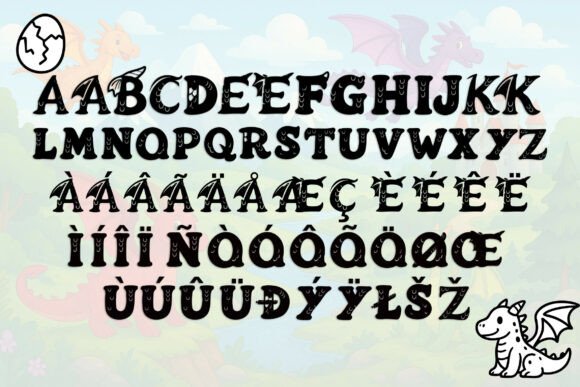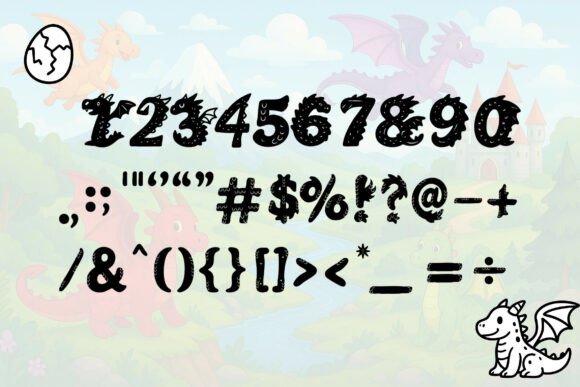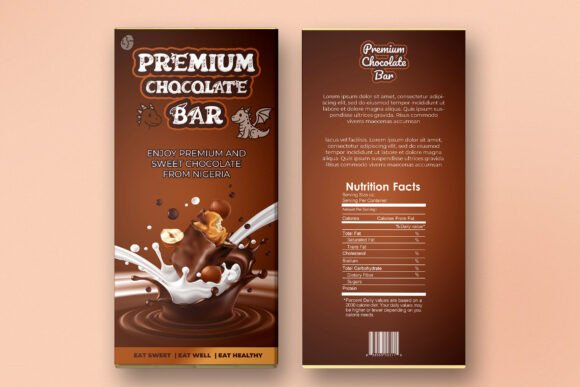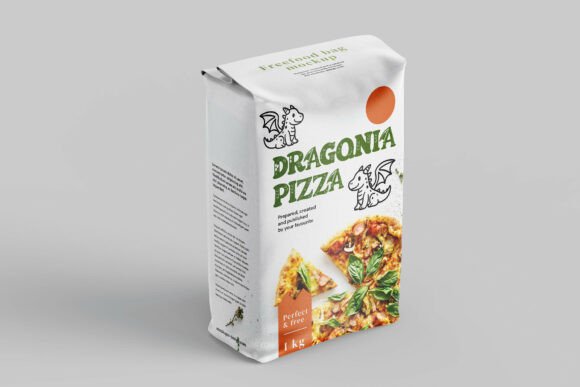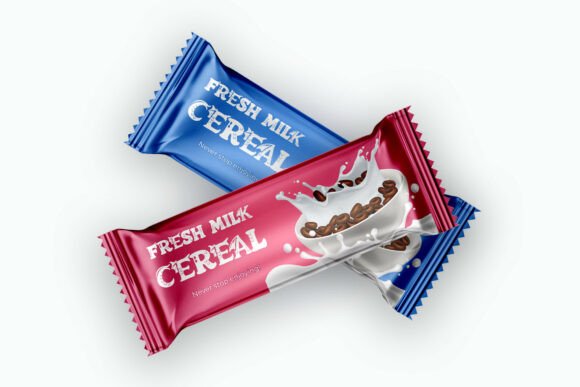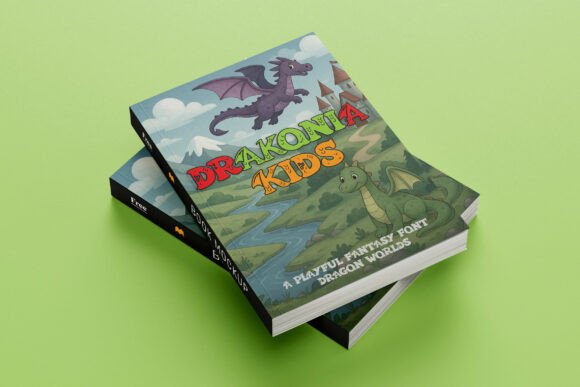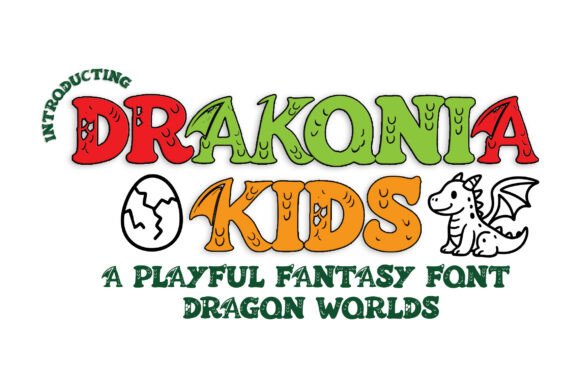
Drakonia Kids Font: A Magical Typeface for Young Adventurers
Are you a designer, crafter, or educator looking for a font that will transport your young audience to a world of wonder and magic? Look no further than Drakonia Kids, a playful fantasy-themed font inspired by the enchanted realms of dragons. In this article, we’ll explore the features and uses of Drakonia Kids, and why it’s the perfect choice for storybooks, games, logos, crafts, classroom fun, and creative learning materials.
The Inspiration Behind Drakonia Kids
Drakonia Kids is a font that embodies the spirit of fantasy and adventure. Its design is inspired by the mythical worlds of dragons, where magic and wonder reign supreme. The font’s creator aimed to capture the essence of these fantastical realms and bring them to life in a typeface that’s both fun and engaging. The result is a font that’s perfect for projects that require a touch of whimsy and playfulness.
Key Features of Drakonia Kids
So, what makes Drakonia Kids so special? Here are some of its key features:
- Playful and fantasy-themed design: Drakonia Kids boasts a unique and imaginative design that’s sure to captivate young audiences.
- Magical and adventurous feel: The font’s style evokes the sense of excitement and wonder that comes with exploring enchanted worlds.
- Perfect for kids’ projects: Drakonia Kids is specifically designed for use in projects aimed at children, making it an ideal choice for storybooks, games, and educational materials.
- Versatile and adaptable: The font can be used in a variety of contexts, from logos and branding to crafts and classroom activities.
Uses for Drakonia Kids
Drakonia Kids is a versatile font that can be used in a wide range of projects, including:
- Storybooks and children’s literature: Bring your storybook characters to life with Drakonia Kids’ playful and imaginative design.
- Games and interactive media: Add a touch of magic to your games, puzzles, and interactive materials with this enchanting font.
- Logos and branding: Create a memorable and engaging brand identity for your kids’ business or product with Drakonia Kids.
- Crafts and DIY projects: Use Drakonia Kids to add a personal touch to your craft projects, such as stickers, stencils, and coloring pages.
- Classroom fun and creative learning materials: Make learning fun with Drakonia Kids, perfect for educational posters, worksheets, and activity sheets.
Why Choose Drakonia Kids?
With so many fonts available, why choose Drakonia Kids? Here are just a few reasons:
- Unique and eye-catching design: Drakonia Kids stands out from the crowd with its one-of-a-kind fantasy-themed design.
- Easy to read and use: Despite its playful style, Drakonia Kids remains clear and legible, making it perfect for use in a variety of contexts.
- Time-saving and efficient: With Drakonia Kids, you can quickly and easily create engaging and imaginative content for your young audience.
In conclusion, Drakonia Kids is a font that’s sure to delight young audiences and inspire creativity in designers, crafters, and educators. Its playful fantasy-themed design, magical and adventurous feel, and versatility make it the perfect choice for a wide range of projects. Whether you’re creating storybooks, games, logos, crafts, or classroom materials, Drakonia Kids is the ideal font to bring your ideas to life.